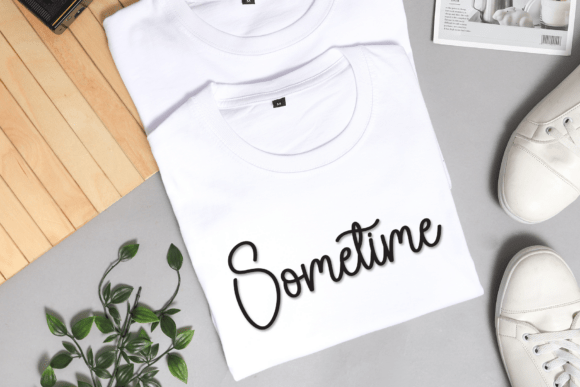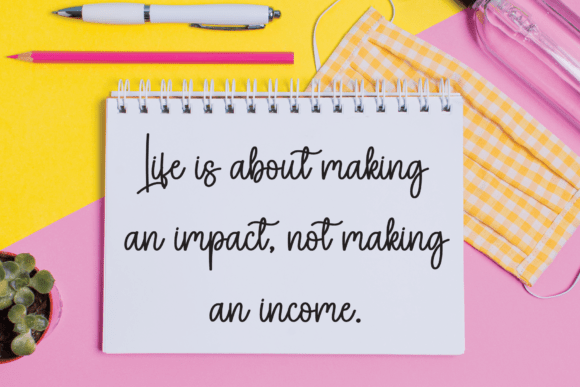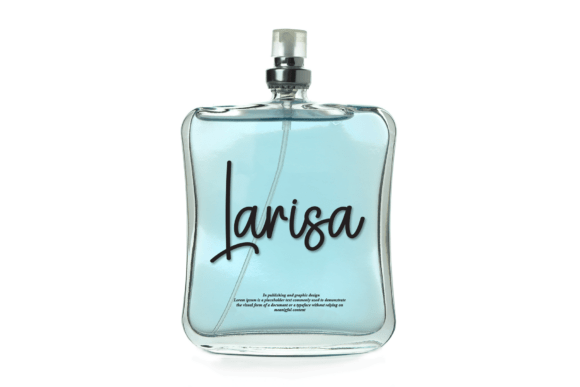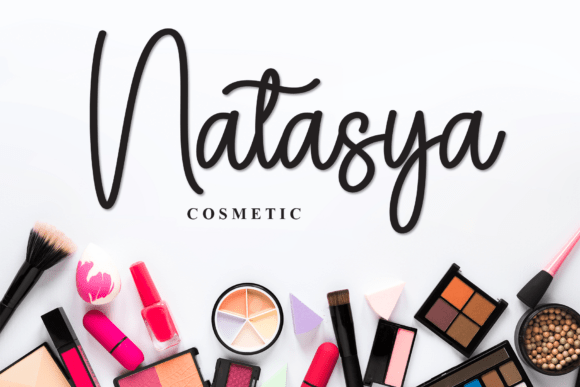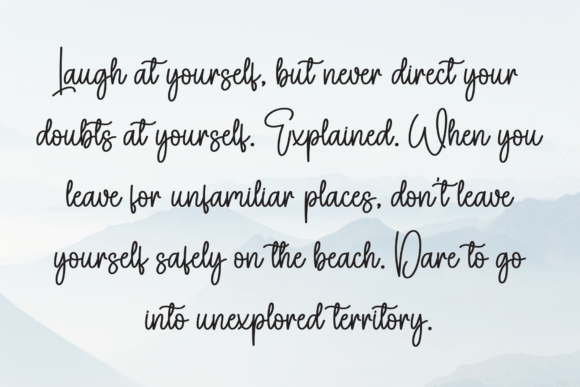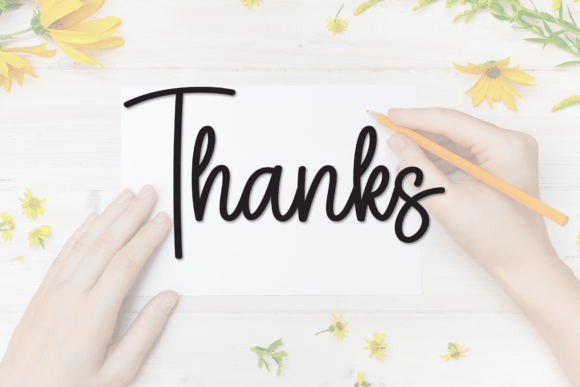
Introducing the Flowers Signature Font: A Whimsical and Modern Handwritten Typeface
Are you looking for a font that captures the essence of nature and brings a touch of elegance to your designs? Look no further than the Flowers Signature font, a beautiful and modern handwritten typeface that is perfect for botanical branding, florist logos, and feminine lifestyle products. In this article, we’ll explore the unique features of the Flowers Signature font and how it can elevate your designs.
A Font that Captures the Beauty of Nature
The Flowers Signature font is a whimsical and modern handwritten typeface that captures the graceful movement of organic forms. Its tall, loopy ascenders and fluid, monoline stroke give it a contemporary and personal feel that’s perfect for designers and crafters who want to add a touch of natural beauty to their work. Whether you’re creating a logo, label, or announcement, this font is sure to impress.
Perfect for Botanical Branding and Feminine Lifestyle Products
The Flowers Signature font is an ideal choice for botanical branding, florist logos, and feminine lifestyle products that require a touch of natural beauty and “hand-inked” charm. Its delicate and elegant appearance makes it perfect for designs that require a sophisticated and boutique feel. When used on light, airy backgrounds, the Flowers Signature font creates a dreamy and approachable aesthetic that’s sure to captivate your audience.
Pairing Suggestions for a Sophisticated Look
The Flowers Signature typeface pairs wonderfully with delicate floral illustrations and serif body text for a sophisticated, boutique feel. This combination is perfect for designers who want to create a cohesive and elegant look that exudes luxury and refinement. Whether you’re creating a birth announcement or an artisanal product label, this font pairing is sure to impress.
Adding a Touch of Warmth and Creativity to Your Work
The Flowers Signature font provides an organic flow that brings a sense of warmth and creativity to your work. Its whimsical and modern appearance makes it perfect for designers and crafters who want to add a personal touch to their designs. Whether you’re creating a logo, label, or announcement, this font is sure to bring a smile to your audience’s face.
Why Choose the Flowers Signature Font?
So why choose the Flowers Signature font for your next design project? Here are just a few reasons why this font stands out from the rest:
- Unique and whimsical appearance: The Flowers Signature font has a one-of-a-kind appearance that’s sure to captivate your audience.
- Perfect for botanical branding and feminine lifestyle products: This font is ideal for designers who want to create elegant and sophisticated designs that exude luxury and refinement.
In conclusion, the Flowers Signature font is a beautiful and modern handwritten typeface that’s perfect for designers and crafters who want to add a touch of natural beauty to their work. Its whimsical and elegant appearance makes it ideal for botanical branding, florist logos, and feminine lifestyle products. With complete access to every glyph and swash, this font is sure to bring a sense of warmth and creativity to your designs. So why wait? Download the Flowers Signature font today and start creating stunning designs that capture the beauty of nature!